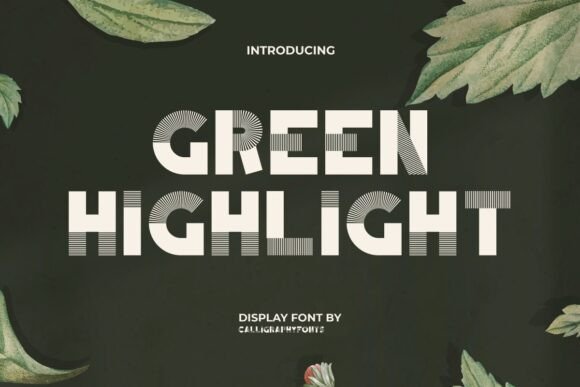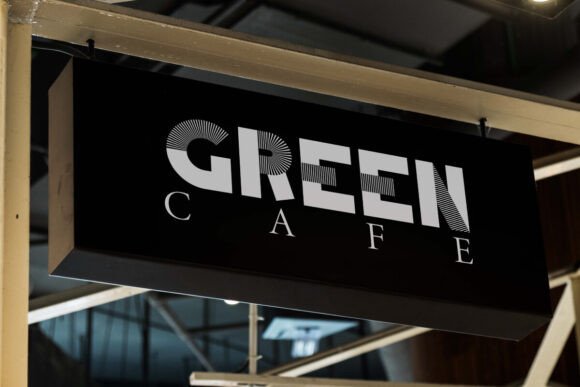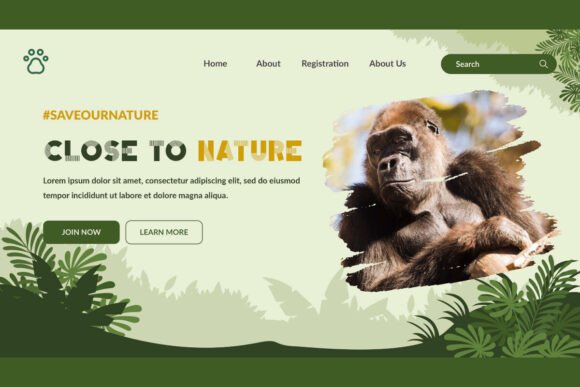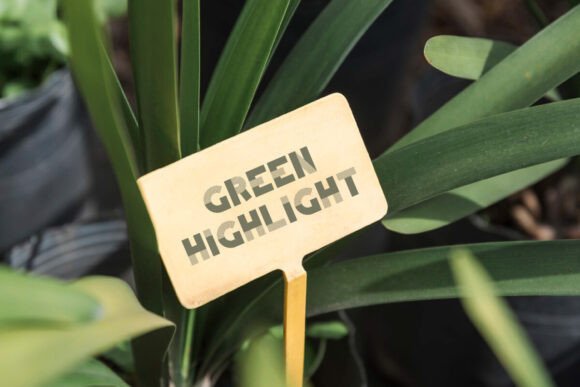
Green Highlight Font
About the Green Highlight Font
Meet Green Highlight Font, a stunning font that brings a touch of elegance and professionalism to any design. Green Highlight is a modern display font with a unique style. The block font is accompanied by lines like a spring spiral effect in some places on each letter to create highlights. It provides creative visual appeal to suit any design, such as billboard, blogs, brand logo, brochure, cards, cover, flyer, header, invitation, packaging design, pamphlet, poster, product label, quotes, screen print, signage board, stationery, sticker, title, website, and more.
Green Highlight’s bold and playful personality makes it ideal for headlines, short text blocks in posters, and branding applications where a strong visual impact is desired. It excels in creating eye-catching logos, packaging designs, and social media graphics. However, its unique letterforms are less suitable for body text or UI elements; the intricate details might become illegible at smaller sizes or within complex layouts.
This font pairs well with clean sans-serif fonts like Open Sans or Lato for a balanced contrast, allowing Green Highlight to maintain its visual dominance. For a more playful feel, consider pairing it with a rounded sans-serif like Bebas Neue or a handwritten script font, but use the script sparingly as an accent. Avoid pairing it with other highly decorative fonts to prevent visual clutter.
Ultimately, Green Highlight is best suited for projects that demand attention and convey a sense of fun and modernity. Brands targeting younger audiences, creative industries, or those emphasizing vibrant energy will find it particularly effective.